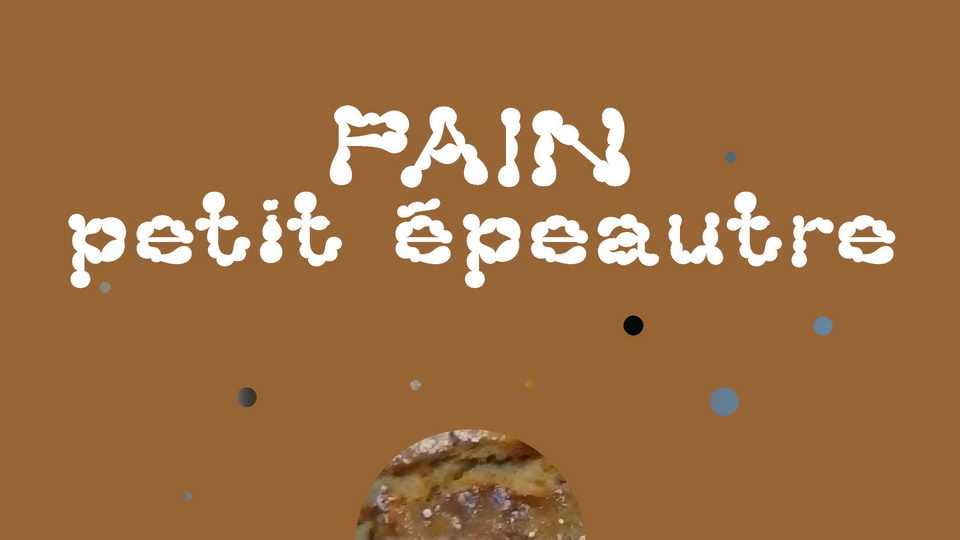
Download Moulimie font, a custom display typeface inspired by a bread. Moulimie font can be perfect for branding and packaging of a natural food products, menus, posters, headlines and more.